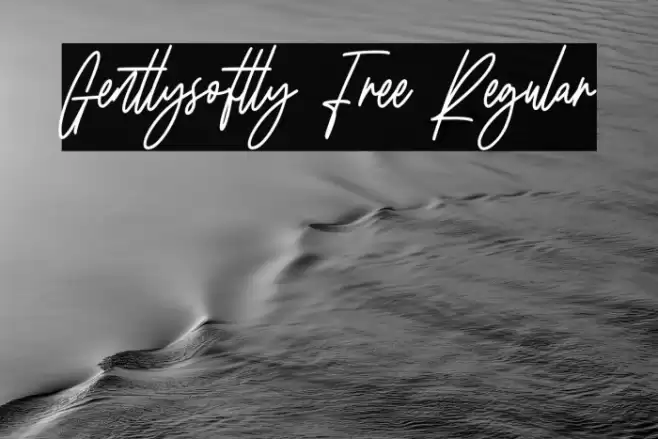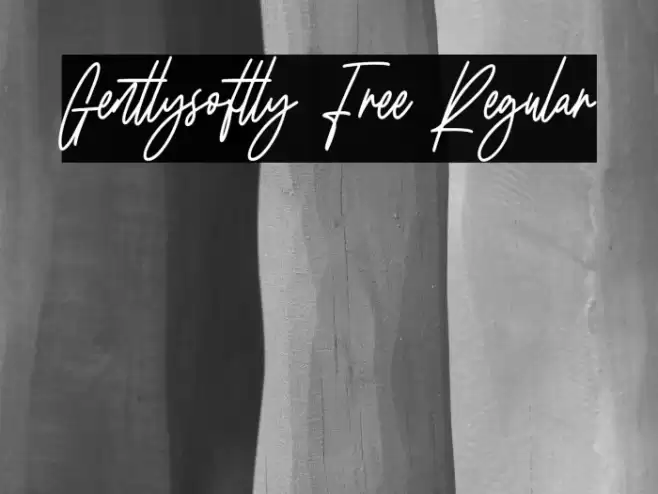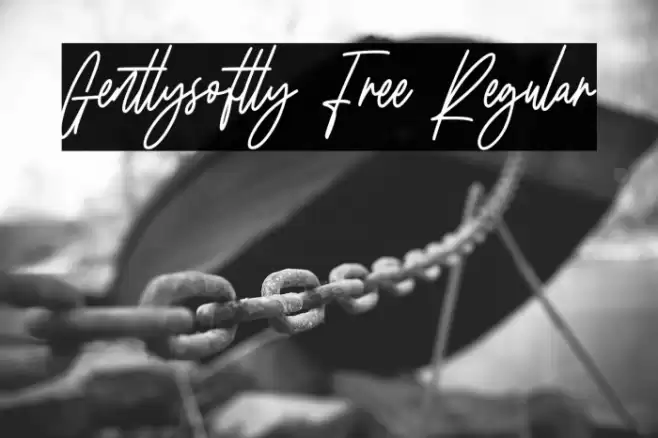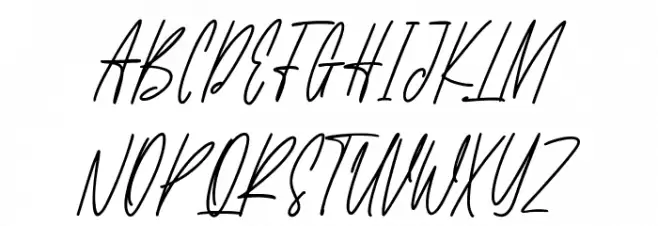
Gentlysoftly Free Regular Font
Gentlysoftly Free Regular Description
This font features a delicate and flowing script style, characterized by its elegant and elongated letterforms. The strokes are smooth and slightly slanted, giving it a handwritten appearance that is both sophisticated and approachable. The uppercase letters are tall and narrow, while the lowercase letters maintain a consistent flow, enhancing readability. The overall design is airy and light, with a graceful touch that adds a personal feel to any text. This font is perfect for projects that require a touch of elegance and informality, such as invitations, greeting cards, and personal branding.
A delicate, flowing script font with elegant, elongated letterforms from Regular fonts.
- Proposed Projects: Ideal for wedding invitations, personal branding, greeting cards, and elegant stationery.
- Overall Style: Elegant, Handwritten
- Use Case: Invitations, Personal branding, Greeting cards